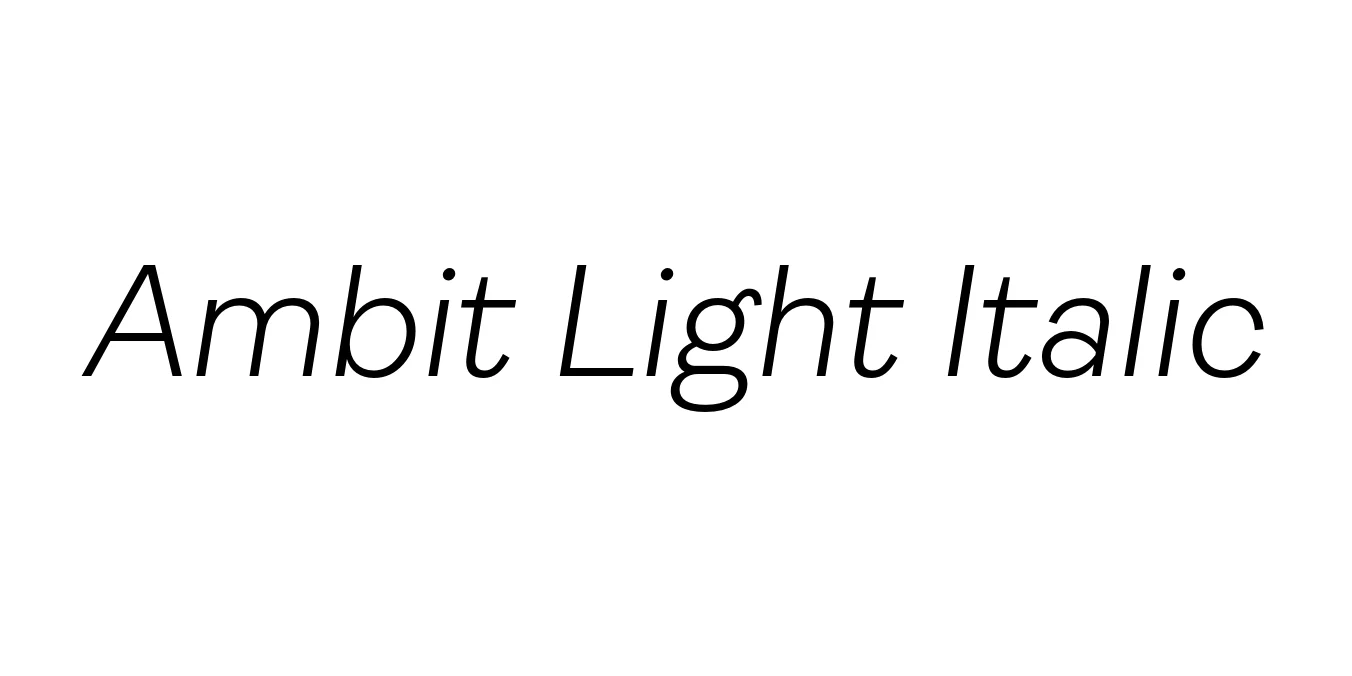
Ambit Light Italic
Designed by Cobi Levy
Ambit Light Italic is an eccentric sans-serif typeface that draws inspiration from early grotesque typefaces while merging them with modern geometric proportions. Designed by Cobi Levy and released through CoType Foundry, the Ambit family is recognized for its unique character shapes, particularly its distinctive 'f', 'g', and 'y' letterforms that provide a fresh, contemporary aesthetic to traditional sans-serif structures.
The Light Italic variant offers a graceful and sophisticated slant, making it an ideal choice for high-end editorial design, minimalist branding, and digital interfaces. Its balanced weight and subtle curvature ensure excellent legibility while maintaining a humanistic touch within its geometric framework, allowing designers to create layouts that feel both professional and artistically expressive.
Ambit Light Italic Best Uses
Creating unique and memorable visual identities for modern startups.
Elegant subheadings and pull quotes in magazine layouts.
Clean and professional typography for minimalist user interfaces.
Distinctive headings for social media graphics and advertising campaigns.